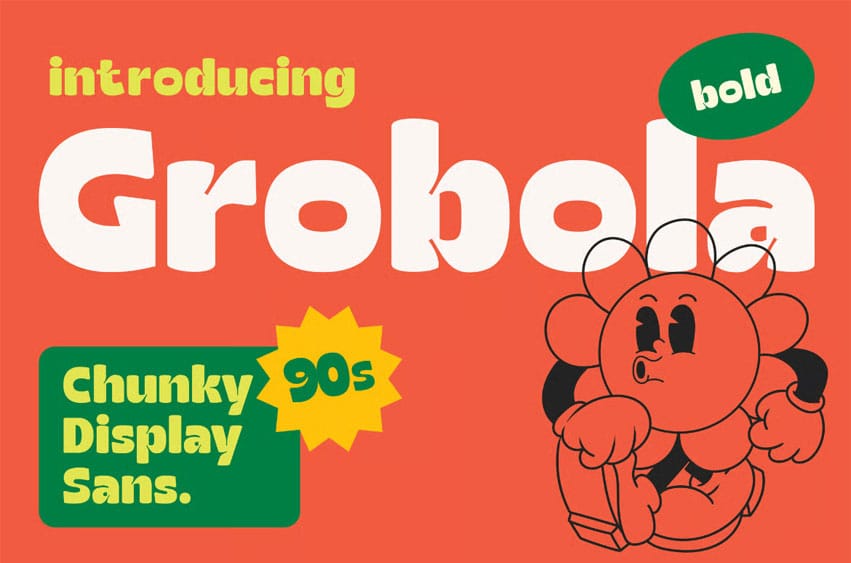
Grobola Font is a bold chunky display sans with a playful retro-modern personality. Designed with wide letterforms, rounded curves, and a strong groovy style, this font is perfect for creating eye-catching headlines, logos, posters, packaging, labels, social media graphics, editorial titles, and fun branding projects.
Inspired by retro visual culture, bold poster typography, and playful display lettering, Grobla brings a loud, friendly, and memorable look to any design. Its chunky shapes and energetic style make it ideal for creative projects that need a strong headline font with vintage charm and modern readability.
Grobla works best for large display use such as logo design, poster titles, product packaging, label design, social media posts, promotional graphics, magazine headlines, and creative branding layouts.